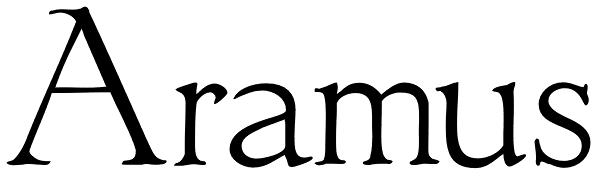
Aramus
Aramus is a new serif font in my continuing objective of designing book fonts that I can really use. In many ways, Aramus is a very different direction for me. It comes from a scan of an old display face that has been radically modified to a much...